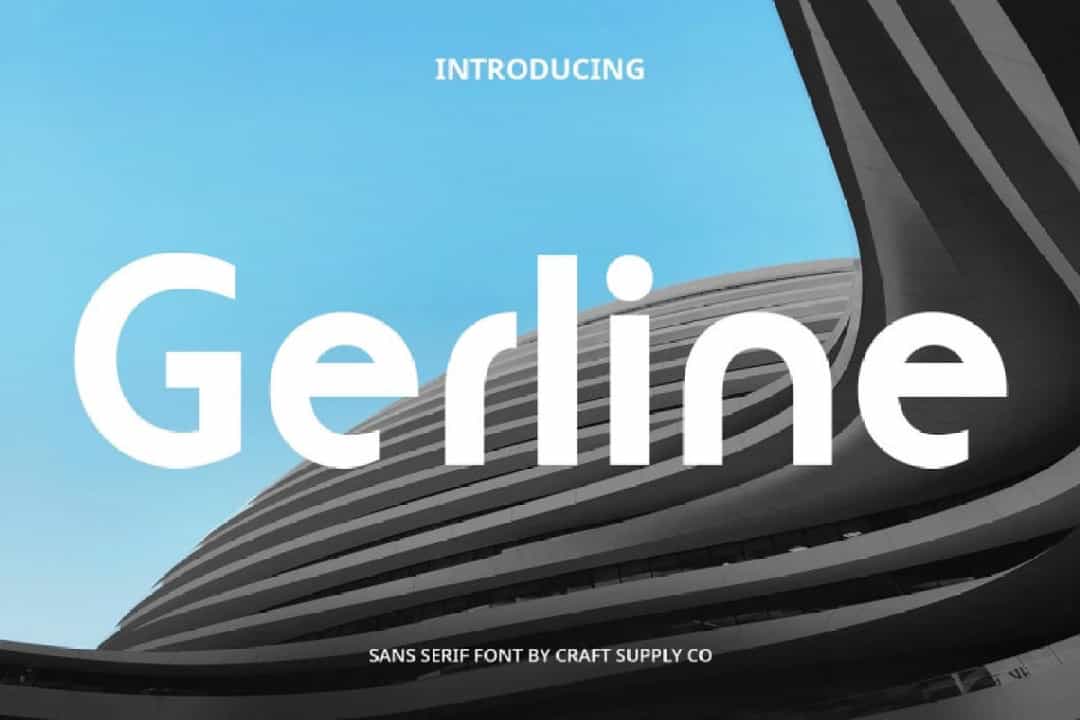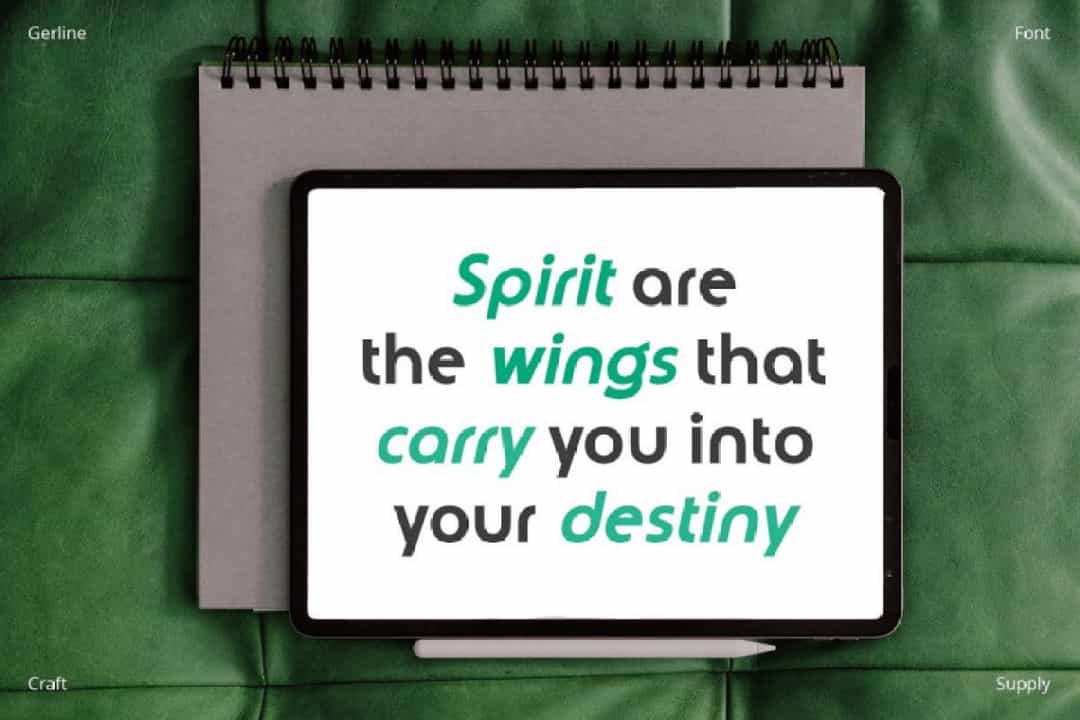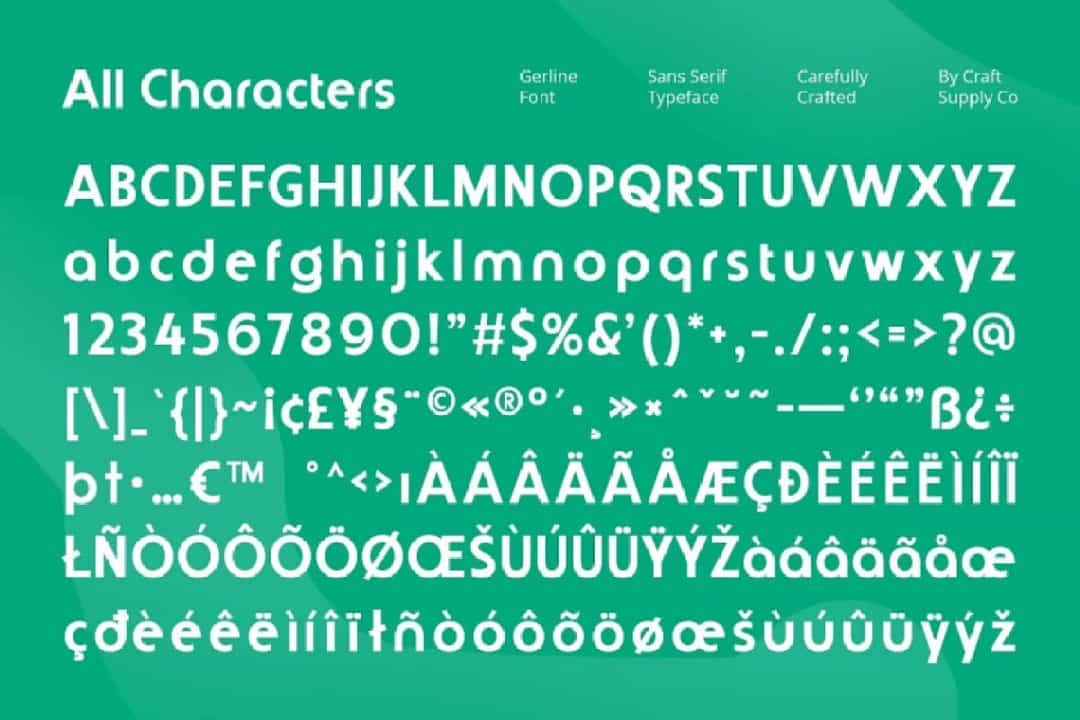
Gerline – is a sans serif typeface that is clean cut and best suited to the business arena. Its sleek and professional design makes it ideal for use in most areas of business as well as for website design. The design of Gerline Font makes it very versatile and it is ideal for use in headlines, body text, and branding. It has a sleek modern look that makes it suitable for any project that one may be working on.